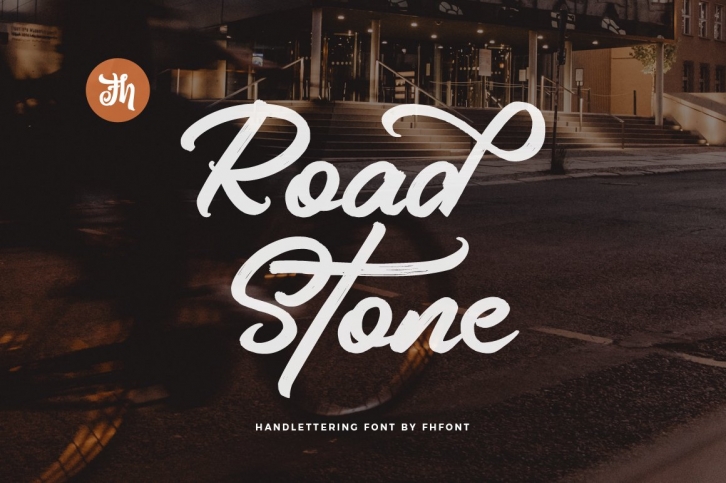
Road Stone is a great font that was designed by feydesign. Imagine the amount of combinations you can create using this font! The archive is 6.58 MB and it was released on February 12, 2022. Road Stone looks beautiful on wedding invitations, greeting cards, logos, posters, labels, t-shirt designs, logos, business cards and is perfect for use in ink or watercolor works, fashion, magazines, packaging and food menus, children's books and more!